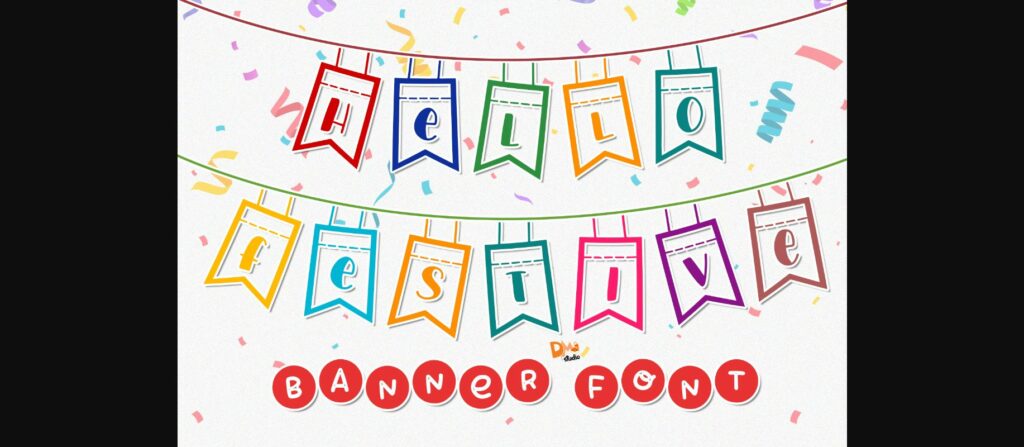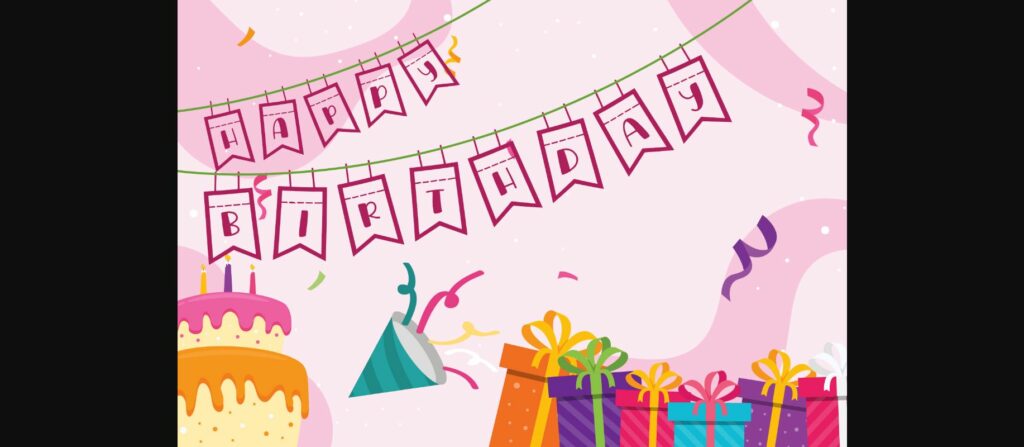
Hello Festive Font
About Hello Festive Font
Hello Festive is a cool, fresh and jolly decorative font. Simple but with a strong visual effect, this font will instantly make your creation more appealing than any others.